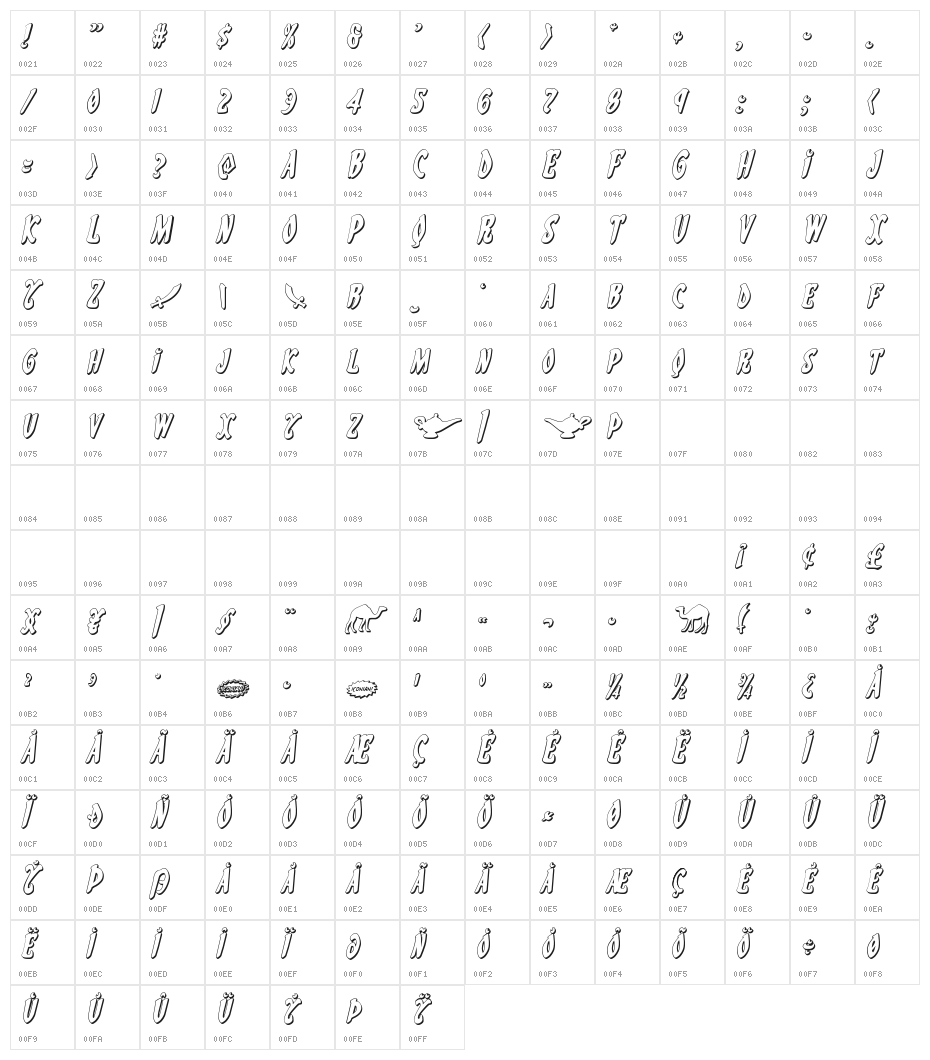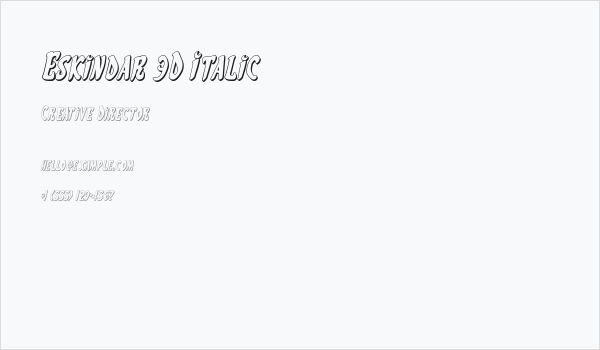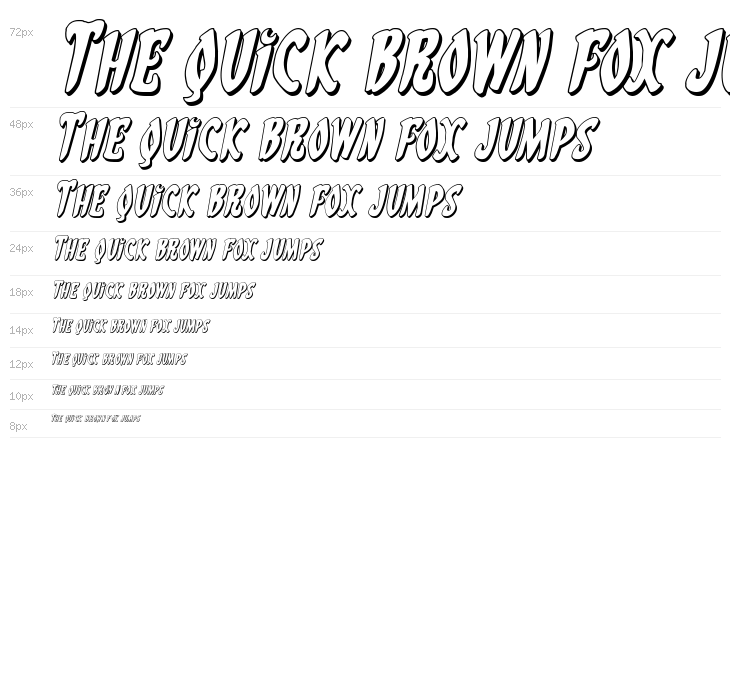
Eskindar 3D Italic Font
Eskindar 3D Italic Description
This font features a bold, three-dimensional design with a distinct italic slant, giving it a dynamic and eye-catching appearance. The characters are outlined with a shadow effect, enhancing the 3D illusion and adding depth. The style is playful yet assertive, making it suitable for attention-grabbing headlines or creative projects. The uppercase and lowercase letters maintain a consistent style, with rounded edges and a slightly condensed form. The numerals and special characters are designed to match the overall aesthetic, ensuring uniformity across all text elements.
| Proposed Projects | Ideal for posters, logos, and creative branding projects where a bold statement is needed. |